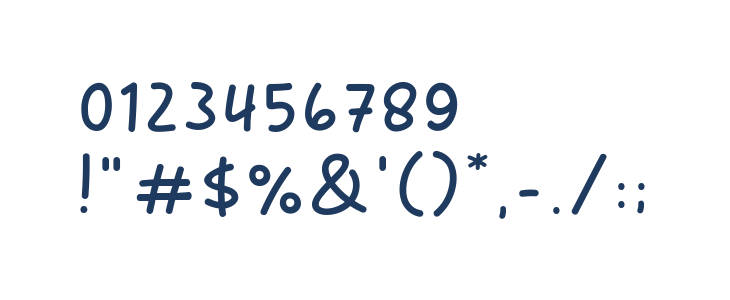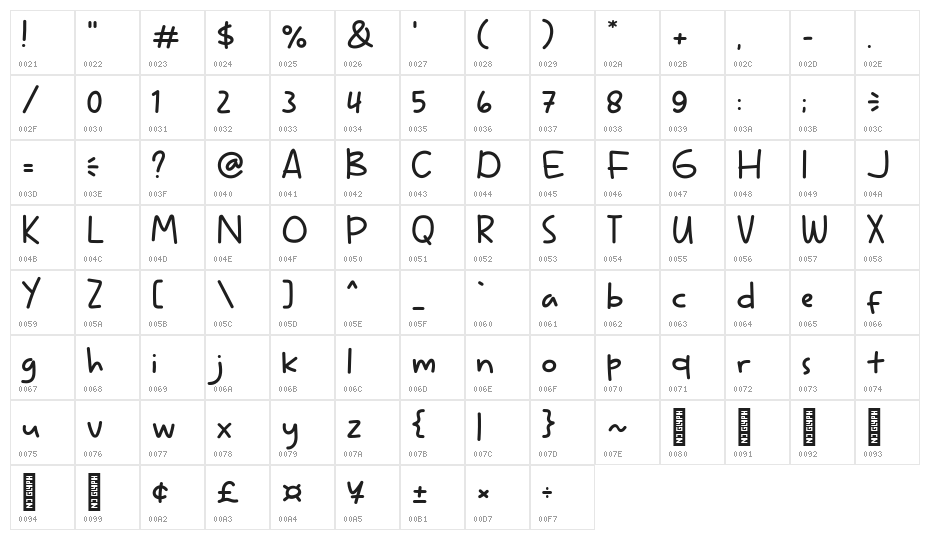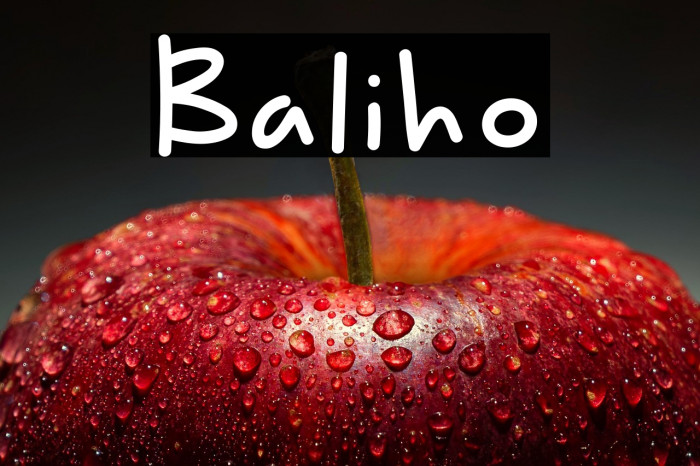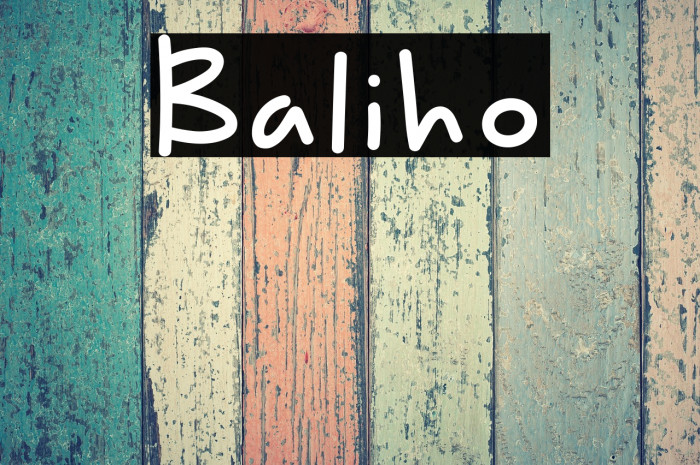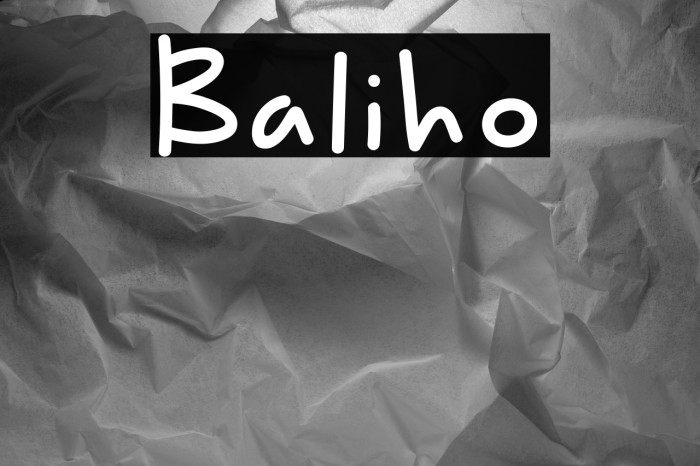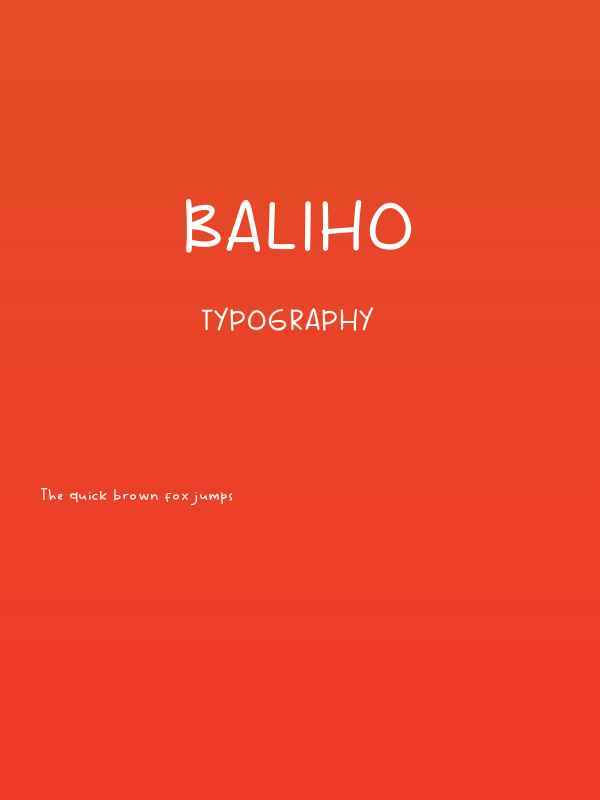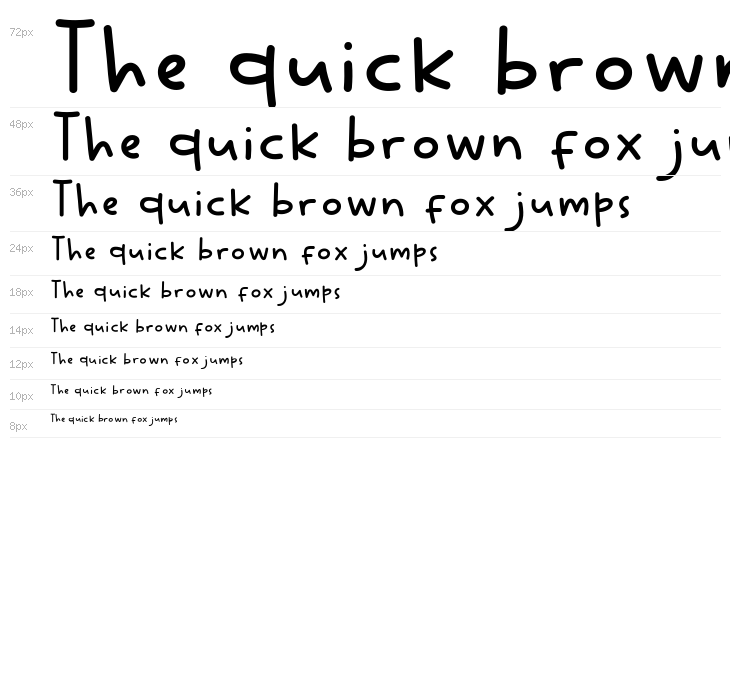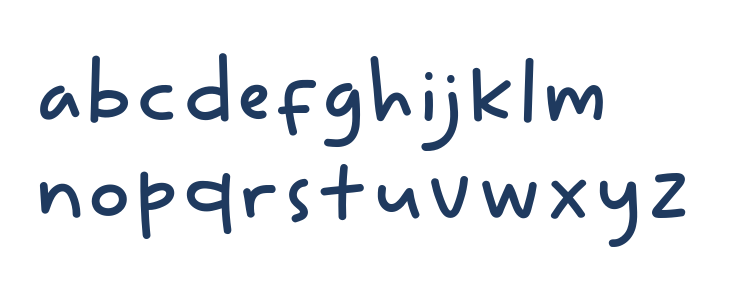
Baliho Font
Baliho Description
This playful and informal font features a handwritten style with rounded edges and a casual appearance. The characters are slightly irregular, adding to its charm and making it feel personal and approachable. The uppercase and lowercase letters maintain a consistent style, with smooth curves and a friendly demeanor. The numerals and special characters are designed to match the overall aesthetic, ensuring a cohesive look across all text. This font is perfect for projects that require a touch of whimsy and warmth, such as children's books, greeting cards, or creative branding.
| Overall Style | Casual, Playful |
| Use Case | Headlines, Informal text, Creative projects |
| Proposed Projects | Ideal for children's books, greeting cards, creative branding, and informal invitations. |